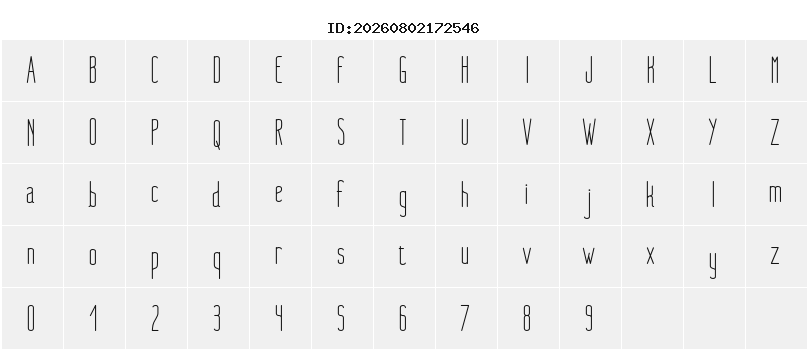
• Font Name: Nue Medium
• Font ID: JuliaMartinezDiana,Antipixel: Nue Medium: 2012
• Full Font Name: NueMedium
• Version: Version 1.000 2012 initial release
• PostScript Name: NueMedium
• Character Count: 231
• Designer: Julia Martinez Diana
• Manufacturer: Julia Martinez Diana, Antipixel
About Nue Medium.otf
Nue Medium.otf is a modern, elegant sans-serif font designed for ultimate readability and visual harmony. Perfect for branding, headlines, web design, and print materials.